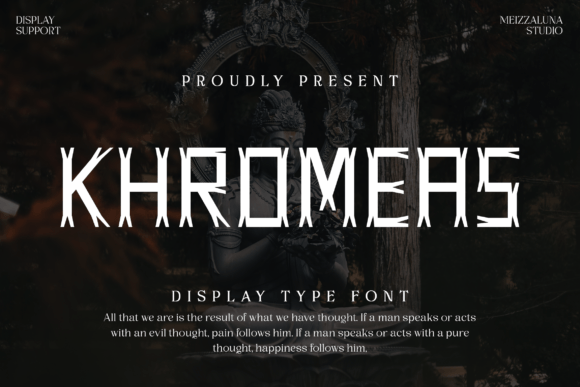
Dive into the captivating world of Khromeas, a display font that exudes both style and substance. Its meticulously crafted characters dance across the screen, leaving an unforgettable impression that will make your designs shine.
Khromeas is not just a mere font; it's an invitation to express yourself with flair and originality. Its bold strokes and sharp angles evoke a sense of modernity, while its subtle curves add a touch of sophistication. Whether you're designing a fashion-forward magazine, a captivating logo, or eye-catching social media graphics, Khromeas will elevate your creations to new heights.
But there's more to Khromeas than meets the eye. This versatile font family is a chameleon, adapting seamlessly to any project you throw its way. Its distinct character set will add a touch of personality to headlines, body copy, and everything in between.
So, why settle for ordinary when you can unleash the extraordinary? Embrace the power of Khromeas and witness the transformative impact it has on your designs. Let its bold strokes ignite your creativity and shape your vision into a masterpiece. Download Khromeas today and embark on a journey of boundless expression.